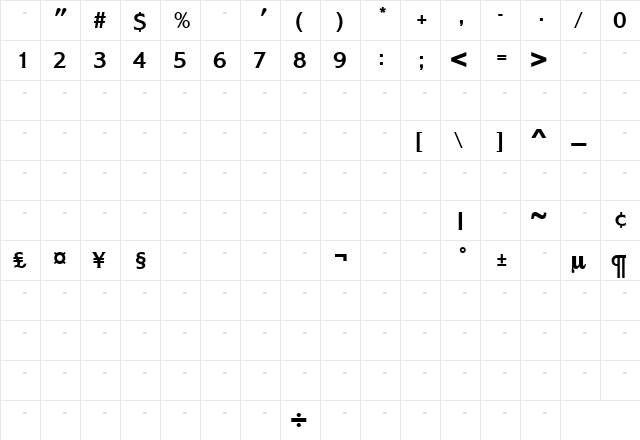
AlexonBoldTab Bold
Design Context for AlexonBoldTab Typeface
AlexonBoldTab is a composed and adaptable typeface that performs quietly and consistently across a wide range of design contexts. Its bold stroke weight gives it real presence on the page.
Pro Tip: Use AlexonBoldTab in both headline and body roles to test its range before committing to a single application.